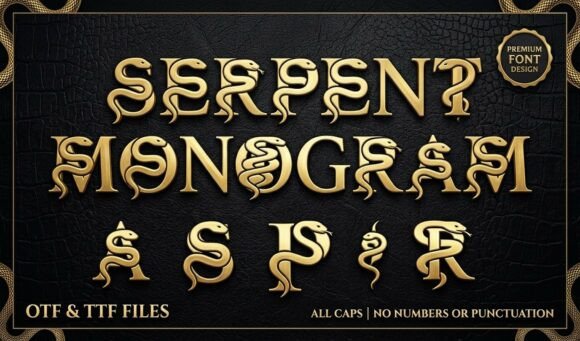
Introduction to Serpent Monogram Font
Add a touch of dark elegance and mystical charm to your designs with the Serpent Monogram Font.
This striking decorative display font features classic, high-contrast serif capital letters beautifully intertwined with a smooth, slithering snake silhouette The serpent weaves effortlessly through the stems of the letters, creating a stunning negative-space cutout effect that instantly draws the eye.
Key Features of Serpent Monogram Font
Why Choose Serpent Monogram Font?
Serpent Monogram Font offers exceptional quality and versatility, making it a valuable addition to your design toolkit. Whether you’re creating for personal projects or commercial use, Serpent Monogram Font delivers professional results.